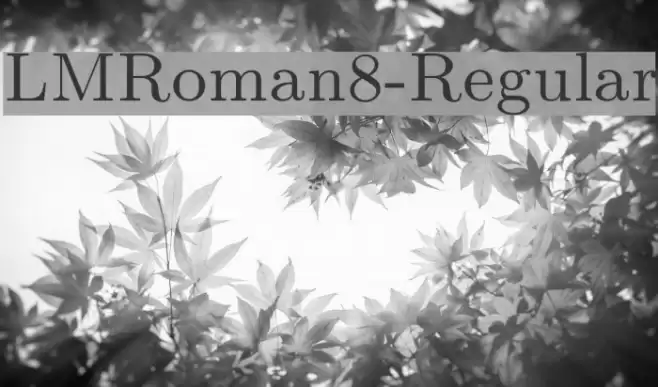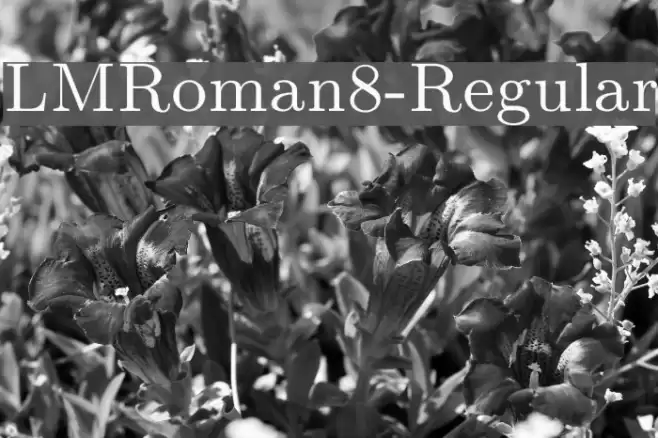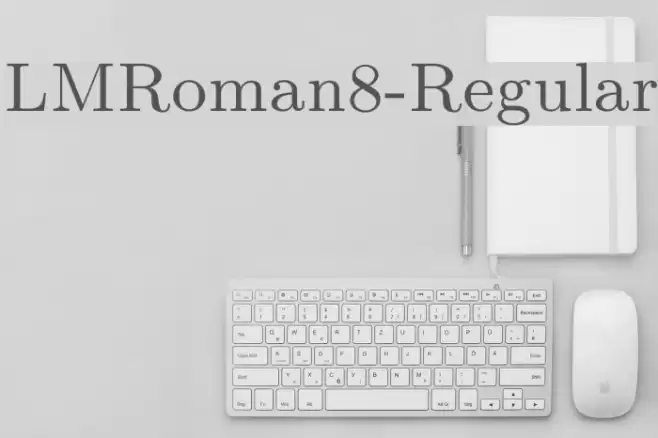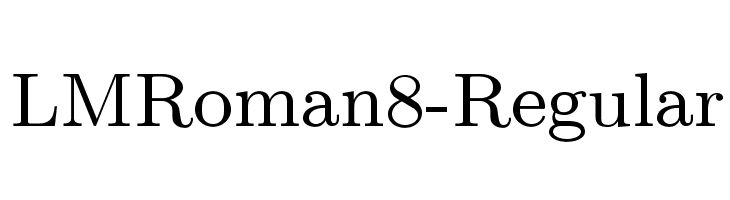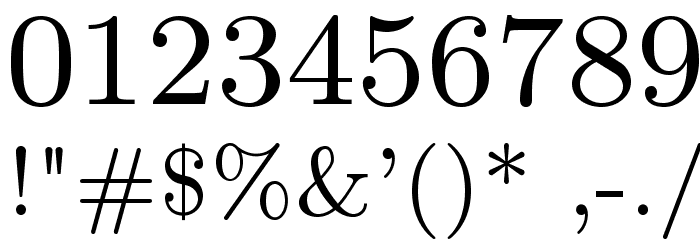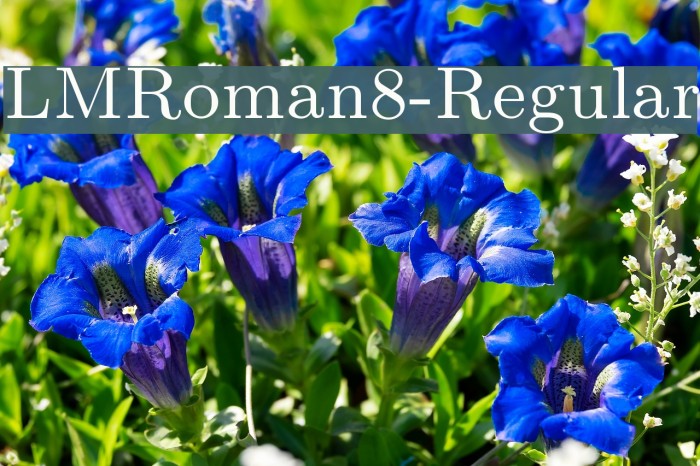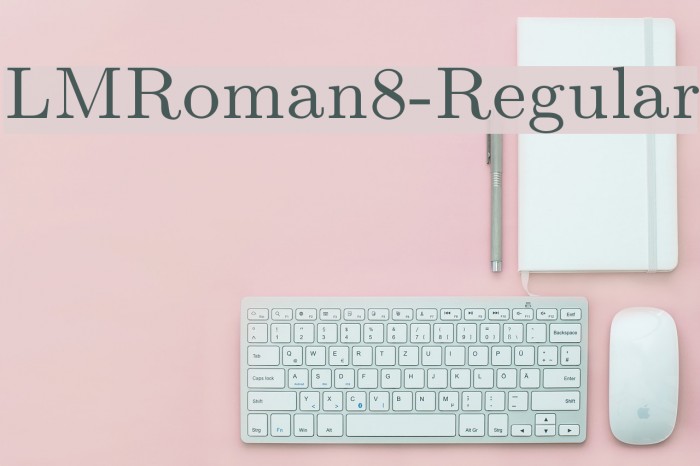
LMRoman8-Regular
This font features a classic serif design with elegant and refined strokes. The uppercase letters are well-proportioned, with a slight contrast between thick and thin lines, giving it a sophisticated appearance. The lowercase letters maintain a consistent style, ensuring readability and a smooth flow. The numerals are clear and distinct, making them suitable for both text and numerical data. Special characters are thoughtfully designed, complementing the overall aesthetic. This font exudes a timeless quality, making it versatile for various applications.
A classic serif font with elegant strokes and refined proportions.
- Proposed Projects: Ideal for book typesetting, formal invitations, academic papers, and branding materials that require a touch of elegance.
- Category: Serif
- Overall Style: Classic
- Use Case: Body text, Headlines, Formal documents